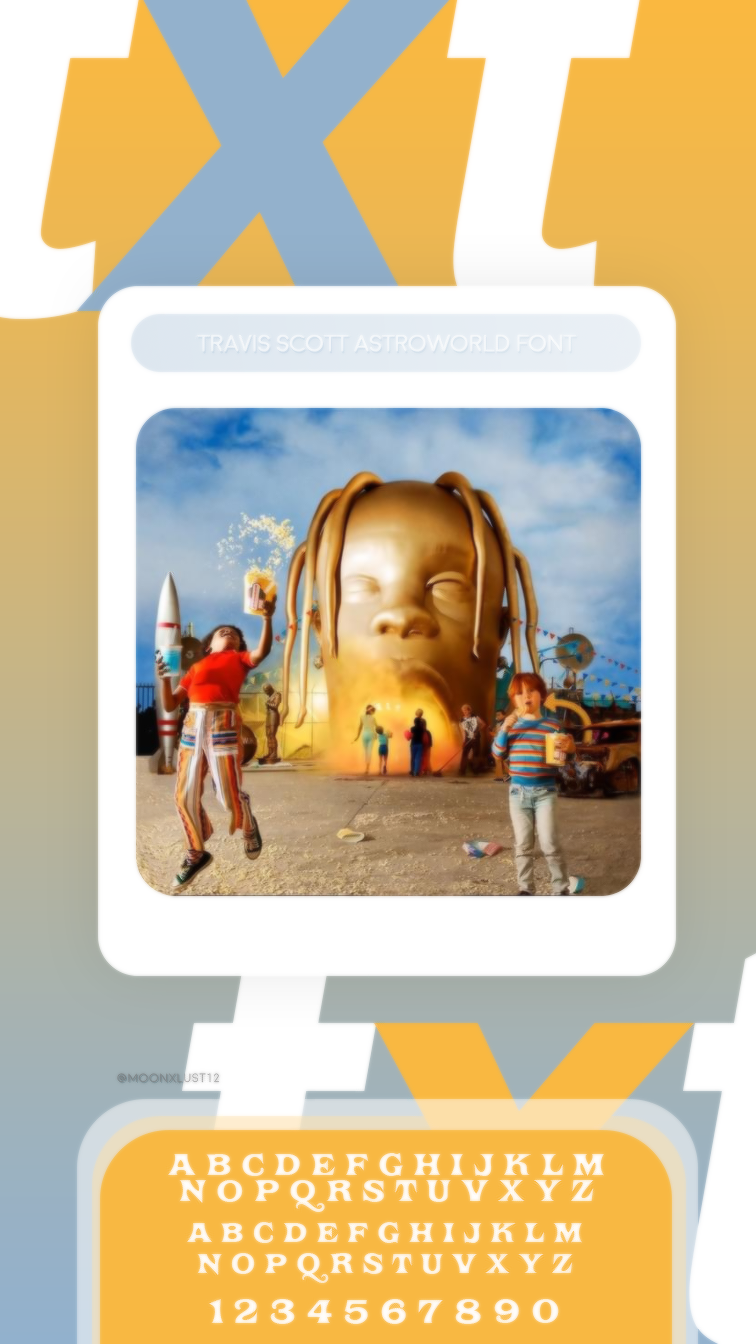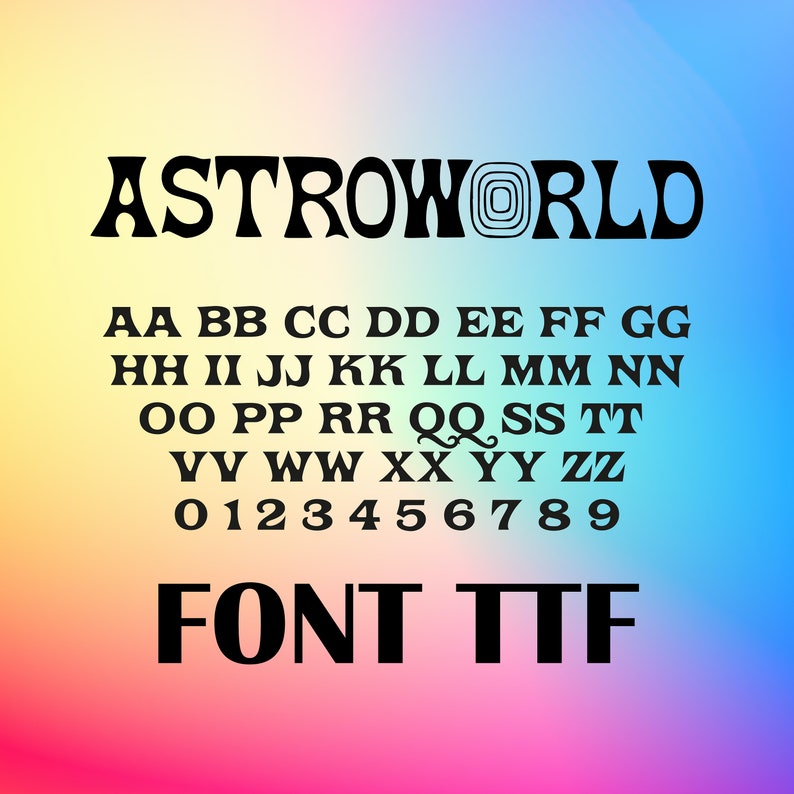
Travis Scott Font
Travis Scott Font - Originally only available on the pinup magazine. The travis scott utopia font is a font developed in collaboration by travis scott and pinup magazine. A forum thread about the font used by travis scott for his album astroworld and a theme park in houston.
The travis scott utopia font is a font developed in collaboration by travis scott and pinup magazine. A forum thread about the font used by travis scott for his album astroworld and a theme park in houston. Originally only available on the pinup magazine.
Originally only available on the pinup magazine. The travis scott utopia font is a font developed in collaboration by travis scott and pinup magazine. A forum thread about the font used by travis scott for his album astroworld and a theme park in houston.
A forum thread about the font used by travis scott for his album astroworld and a theme park in houston. The travis scott utopia font is a font developed in collaboration by travis scott and pinup magazine. Originally only available on the pinup magazine.
Travis Scott Astroworld Font by moonxlust12 on DeviantArt
Originally only available on the pinup magazine. A forum thread about the font used by travis scott for his album astroworld and a theme park in houston. The travis scott utopia font is a font developed in collaboration by travis scott and pinup magazine.
Travis Scott Font Dafont
The travis scott utopia font is a font developed in collaboration by travis scott and pinup magazine. A forum thread about the font used by travis scott for his album astroworld and a theme park in houston. Originally only available on the pinup magazine.
Travis Scott Font Dafont
The travis scott utopia font is a font developed in collaboration by travis scott and pinup magazine. Originally only available on the pinup magazine. A forum thread about the font used by travis scott for his album astroworld and a theme park in houston.
A forum thread about the font used by travis scott for his album astroworld and a theme park in houston. The travis scott utopia font is a font developed in collaboration by travis scott and pinup magazine. Originally only available on the pinup magazine.
Travis Scott Font Dafont
Originally only available on the pinup magazine. The travis scott utopia font is a font developed in collaboration by travis scott and pinup magazine. A forum thread about the font used by travis scott for his album astroworld and a theme park in houston.
Travis Scott Font Free
A forum thread about the font used by travis scott for his album astroworld and a theme park in houston. The travis scott utopia font is a font developed in collaboration by travis scott and pinup magazine. Originally only available on the pinup magazine.
Travis Scott Font Free
A forum thread about the font used by travis scott for his album astroworld and a theme park in houston. The travis scott utopia font is a font developed in collaboration by travis scott and pinup magazine. Originally only available on the pinup magazine.
A forum thread about the font used by travis scott for his album astroworld and a theme park in houston. Originally only available on the pinup magazine. The travis scott utopia font is a font developed in collaboration by travis scott and pinup magazine.
Originally Only Available On The Pinup Magazine.
The travis scott utopia font is a font developed in collaboration by travis scott and pinup magazine. A forum thread about the font used by travis scott for his album astroworld and a theme park in houston.